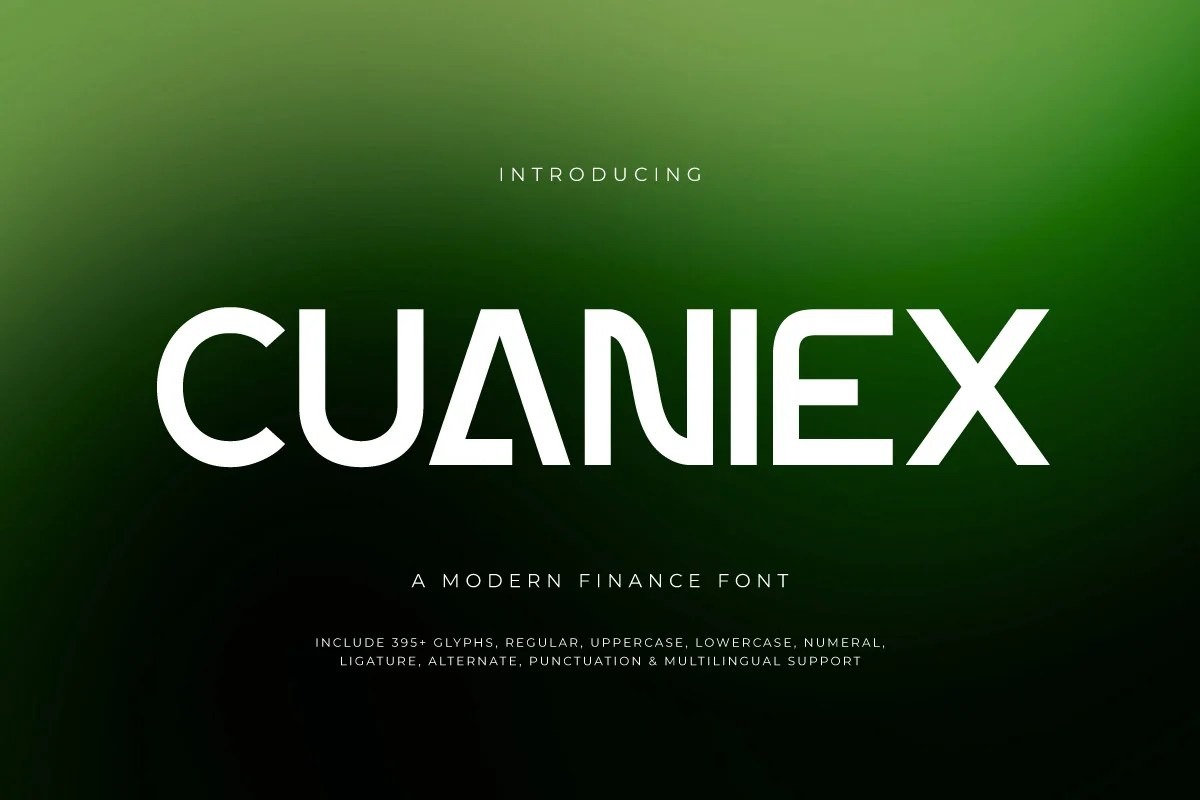
Cuaniex – Modern Finance Font
Cuaniex – Modern Finance Font is a clean and thoughtfully built typeface that works seamlessly for both professional branding and everyday creative uses. Engineered for a Seamless Transaction UI, Cuaniex delivers high-level legibility across digital interfaces, from banking apps to investment platforms. Its minimal yet bold sans-serif characters provide a professional premium feel, ideal for strengthening branding in crypto, blockchain, and financial technology sectors.
Featuring over 395 glyphs, Cuaniex offers design flexibility through unique ligatures and modern alternates. Full multilingual support ensures global readiness, making it the top choice for tech startups and corporations aiming to stand out in the digital finance market.